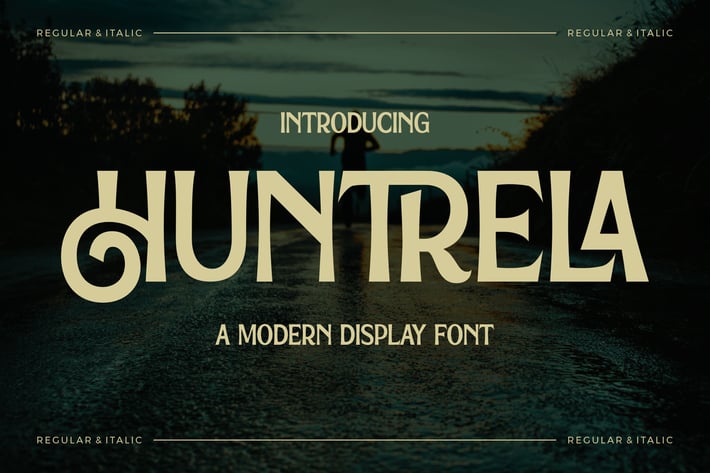
Huntrela A Modern Display Font
Huntrela A is a bold modern display font that blends strong geometric structure with subtle retro character. Its confident letterforms and clean proportions make it instantly eye-catching, perfect for designs that need to feel powerful, cinematic, and timeless all at once.
Modern display style with bold, distinctive shapes
Includes Regular & Italic styles
Strong readability for large headlines
Unique character details that add personality
Branding & logo design
Posters and cinematic titles
Editorial headlines
Album covers and creative campaigns
Social media visuals with strong impact
Designed to stand out with confidence — a modern display font built for bold ideas and unforgettable headlines.*